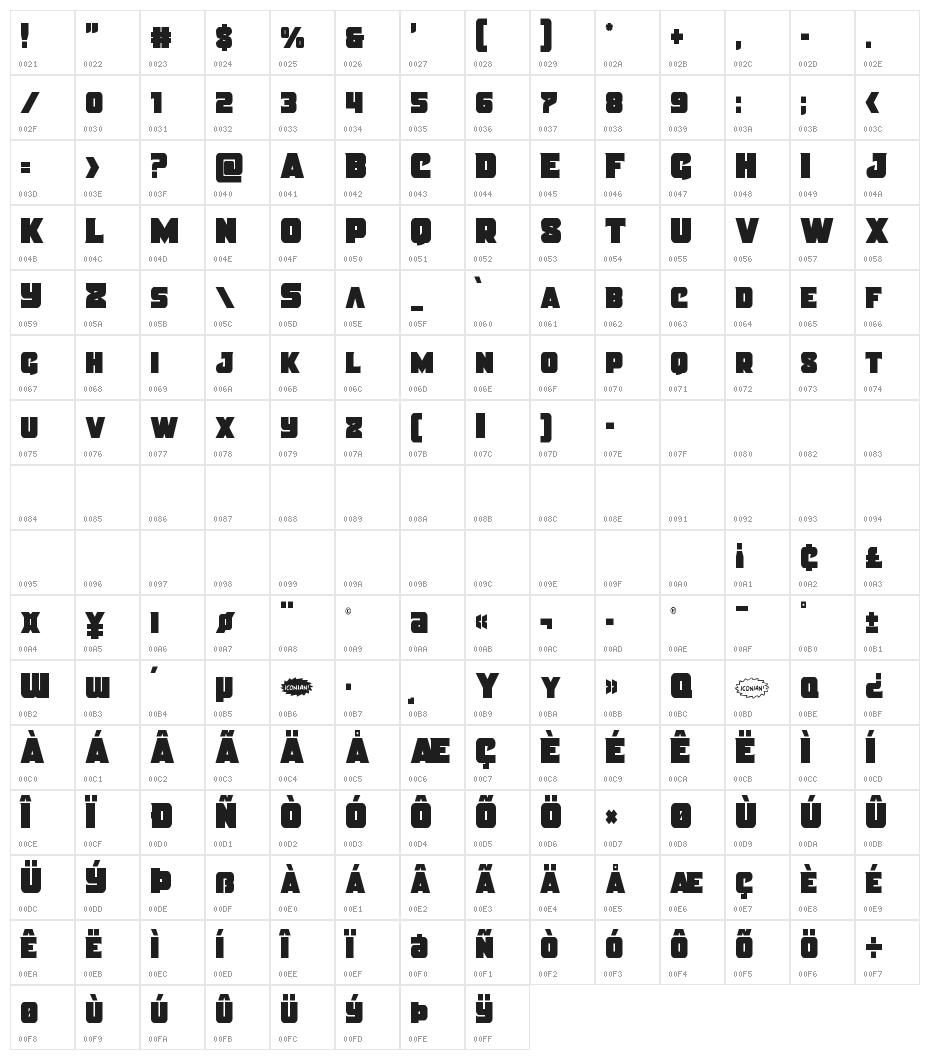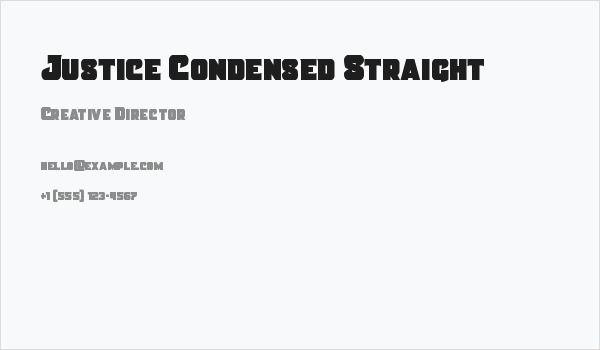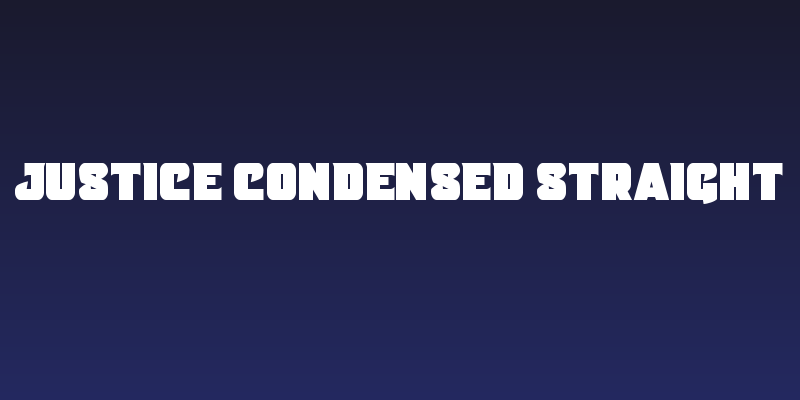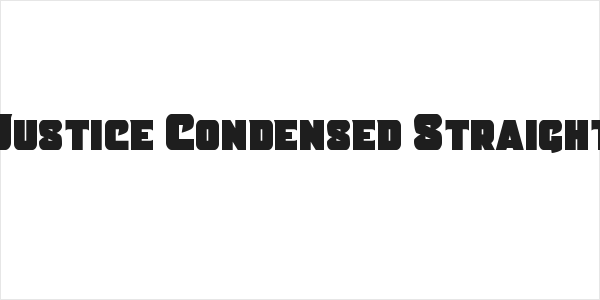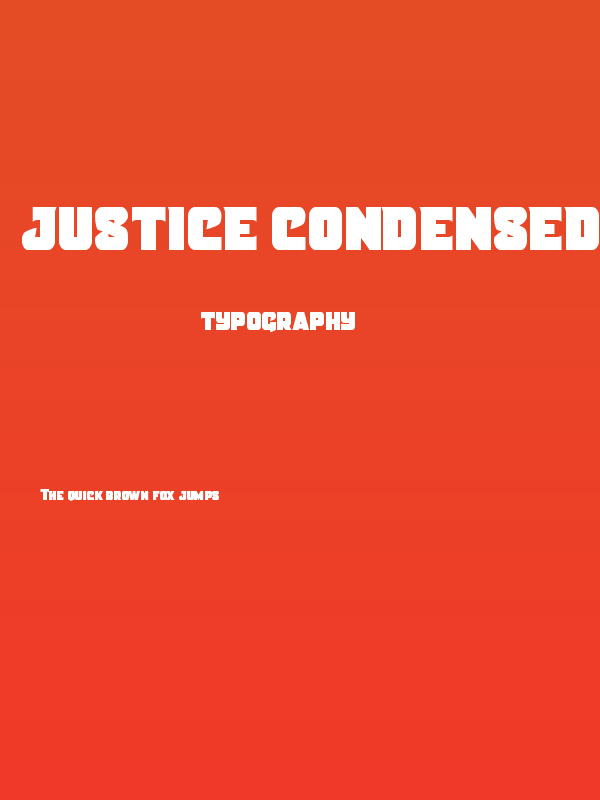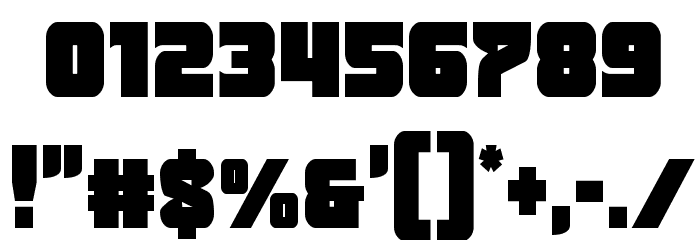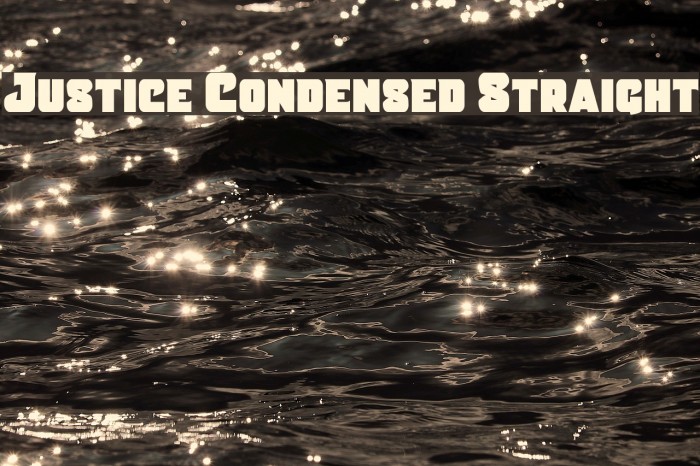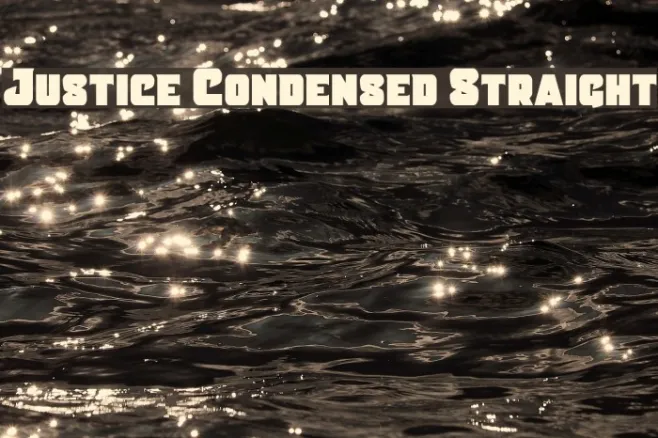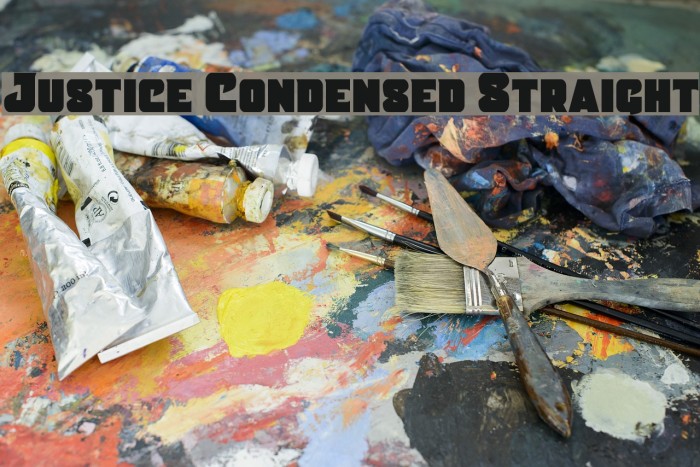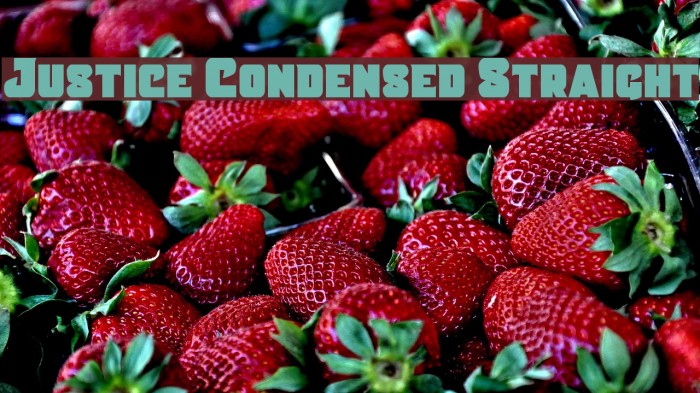
Justice Condensed Straight Font
Justice Condensed Straight Description
This font features a bold and striking design with a condensed and straight-edged style. The characters are robust and impactful, making them ideal for attention-grabbing headlines or titles. The uppercase letters are uniform in height, while the lowercase letters maintain a consistent style, ensuring readability. Numbers and special characters are designed with the same boldness, providing a cohesive look across all elements. The font's geometric shapes and clean lines give it a modern and authoritative appearance, suitable for projects that require a strong visual presence.
| Proposed Projects | Ideal for posters, banners, branding, and any project needing a strong visual impact. |